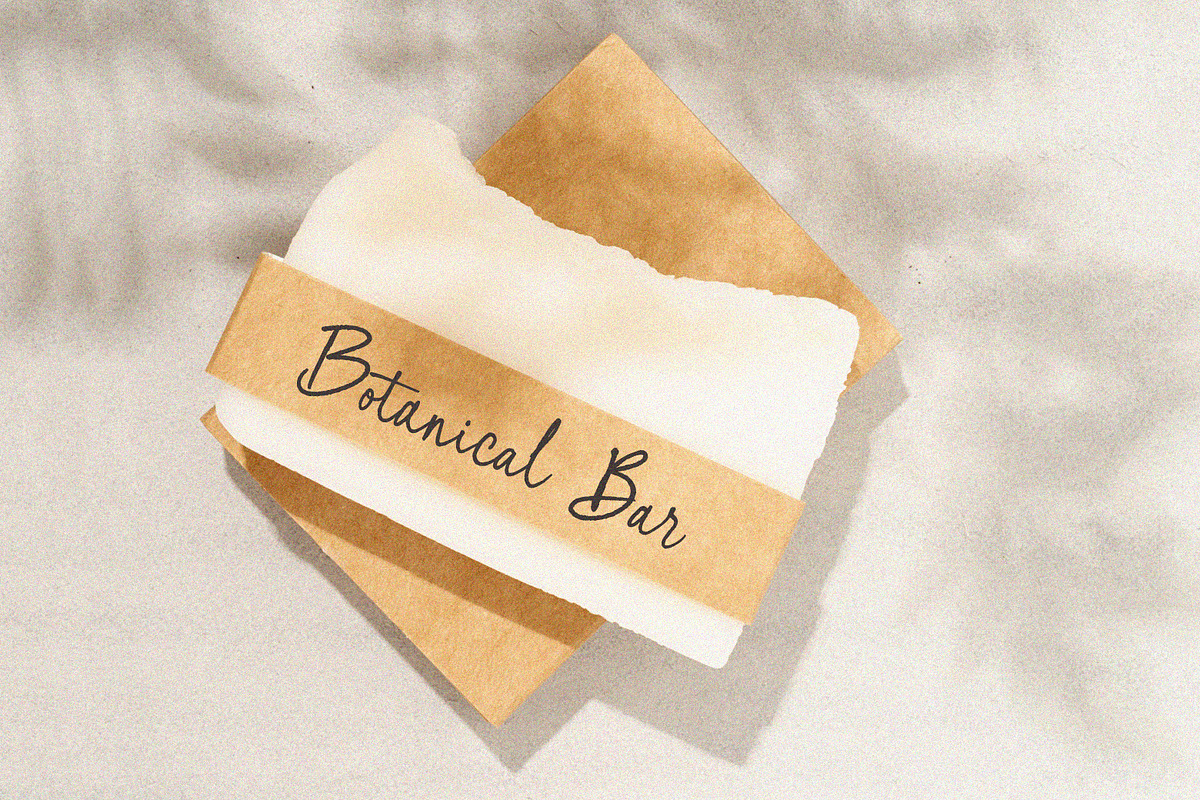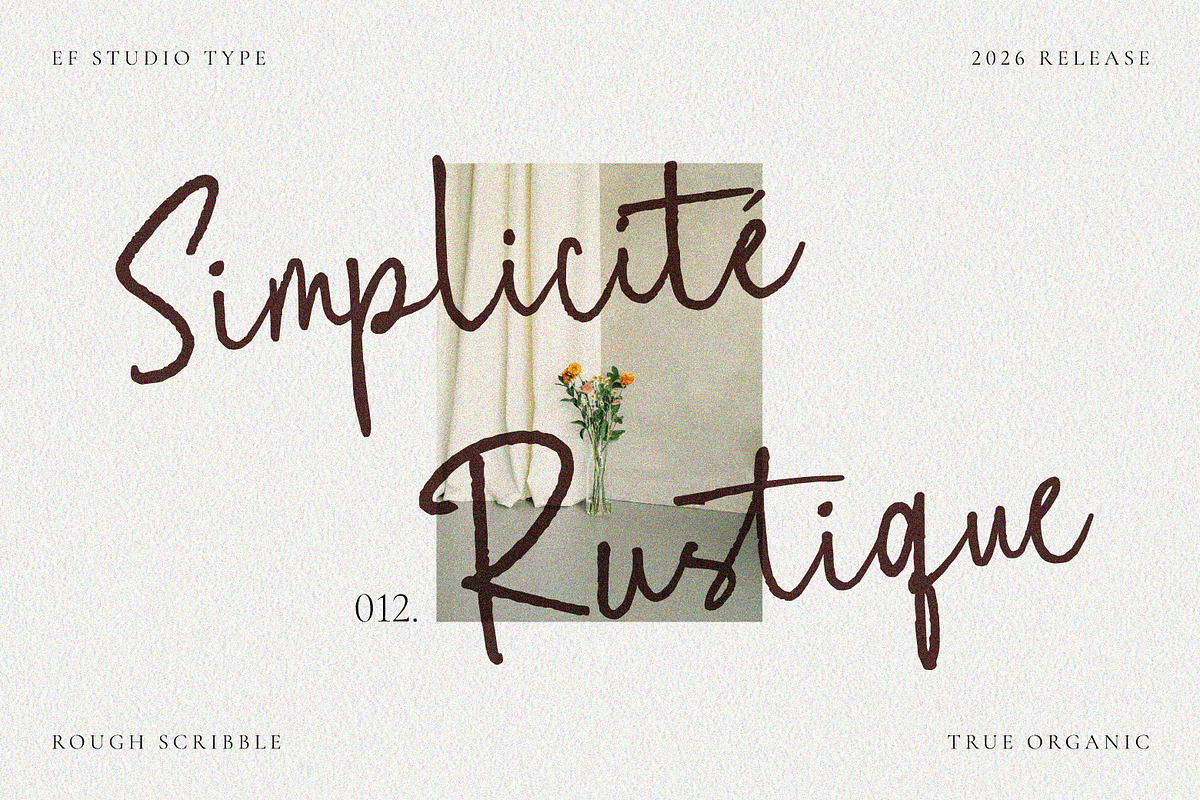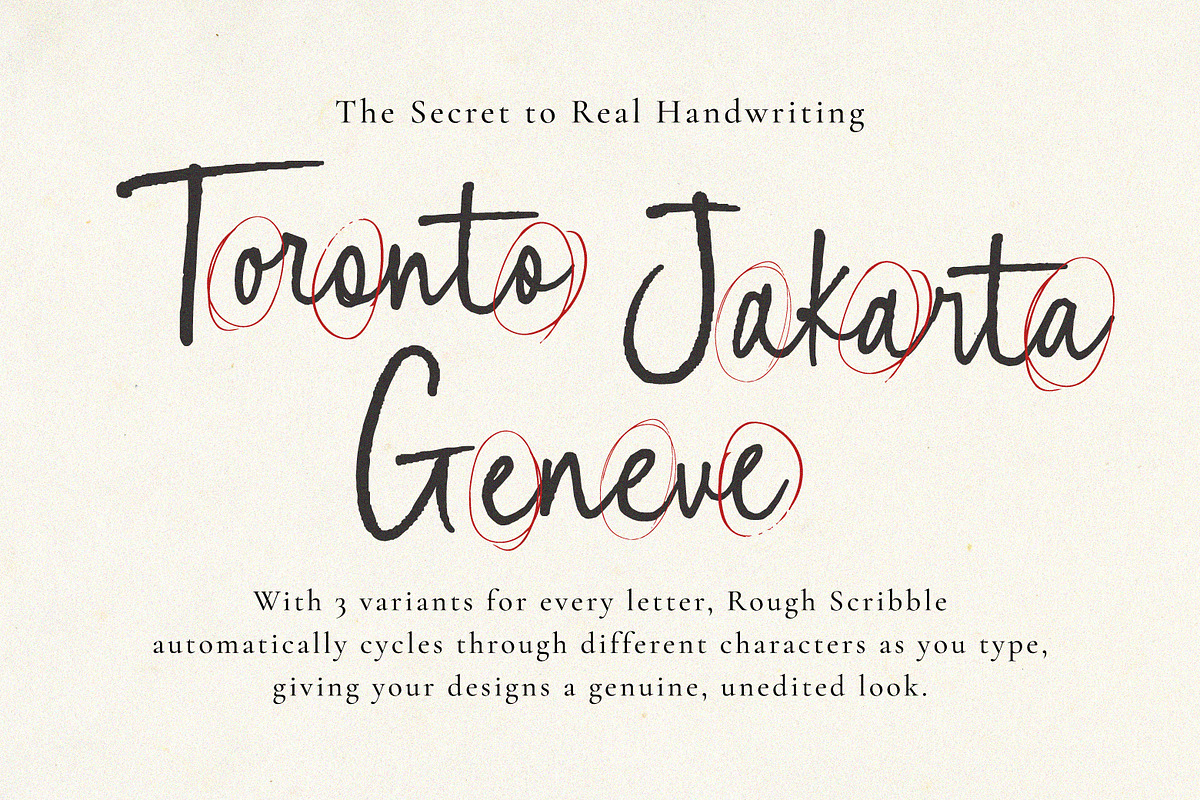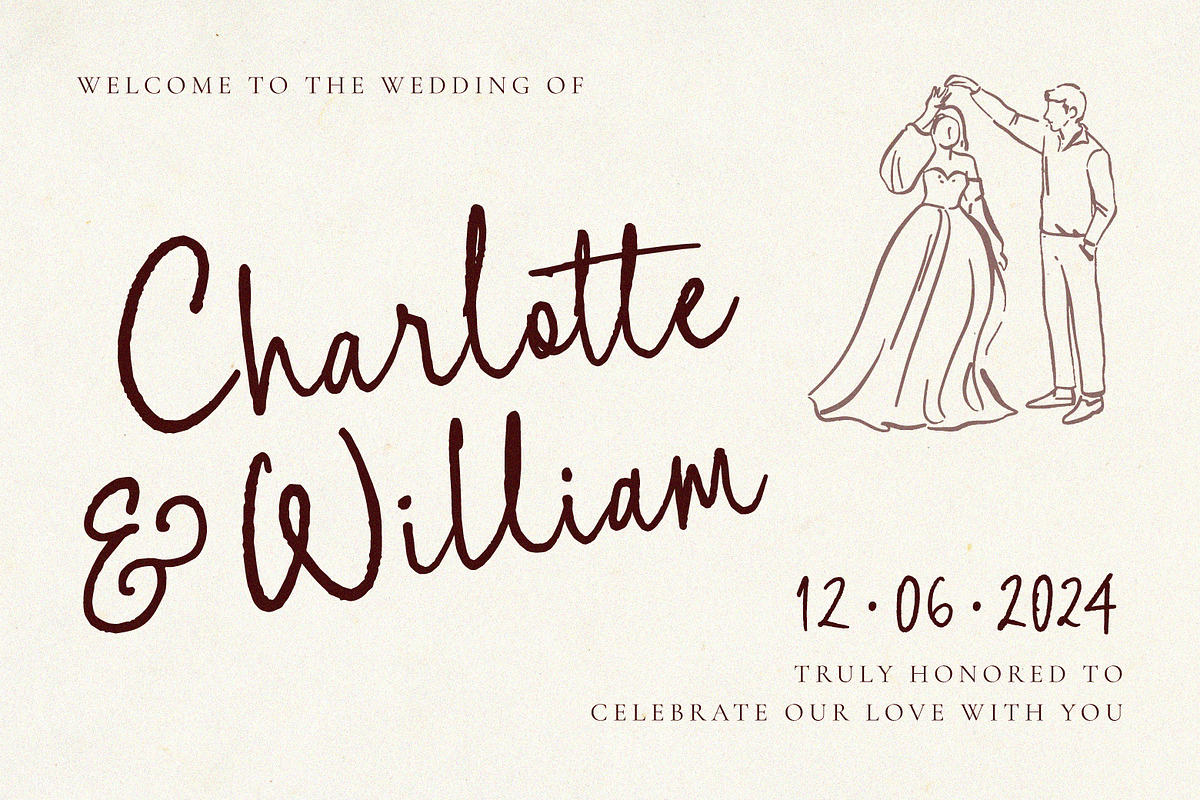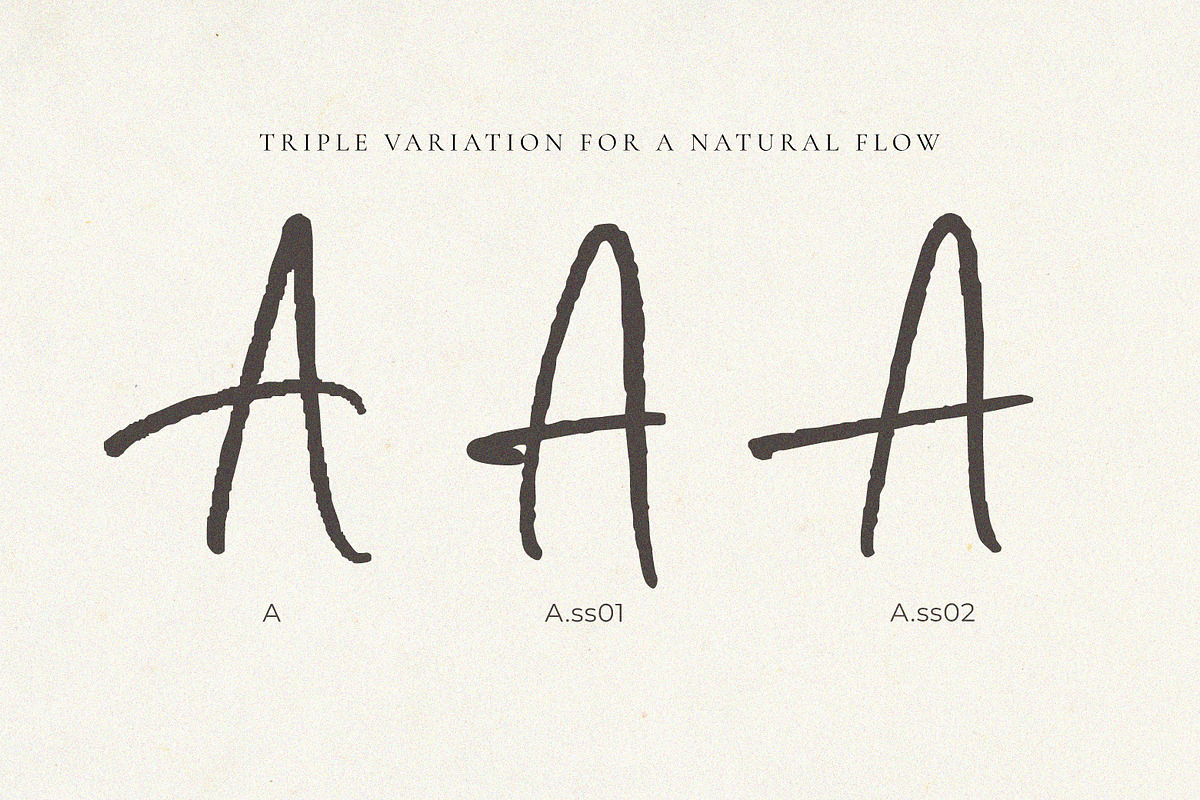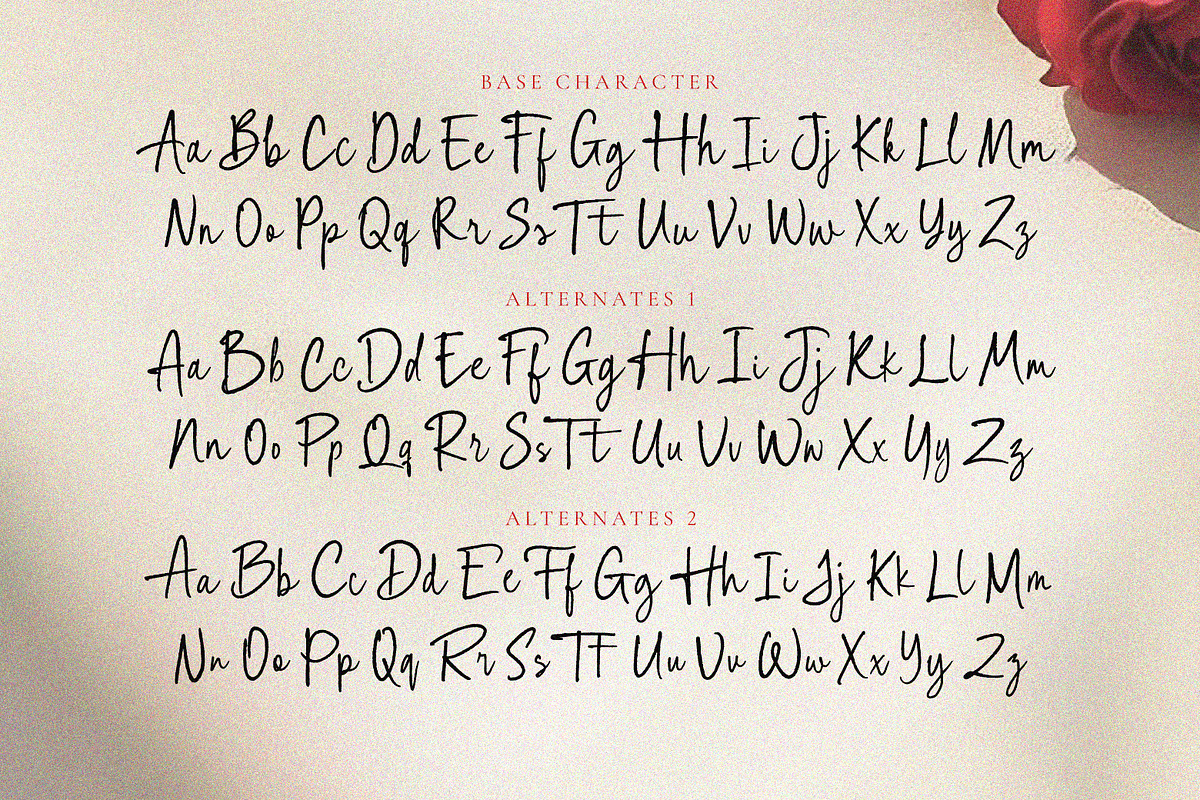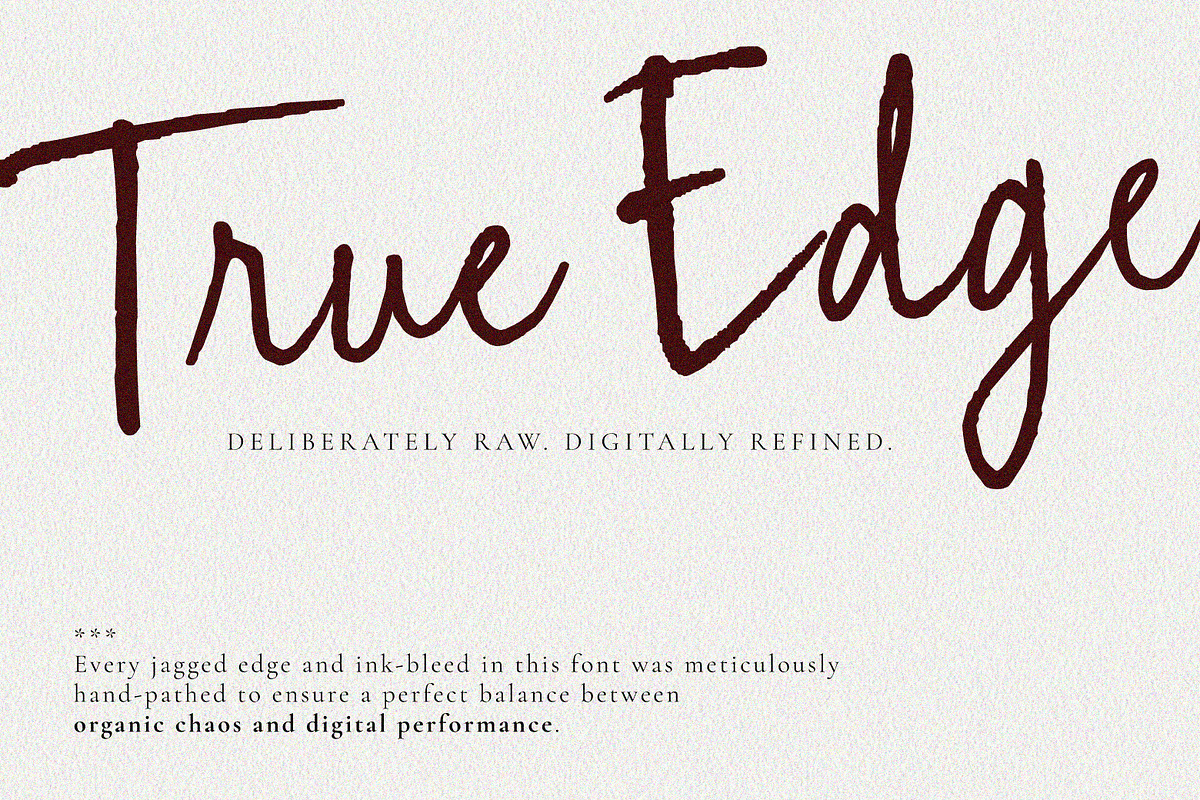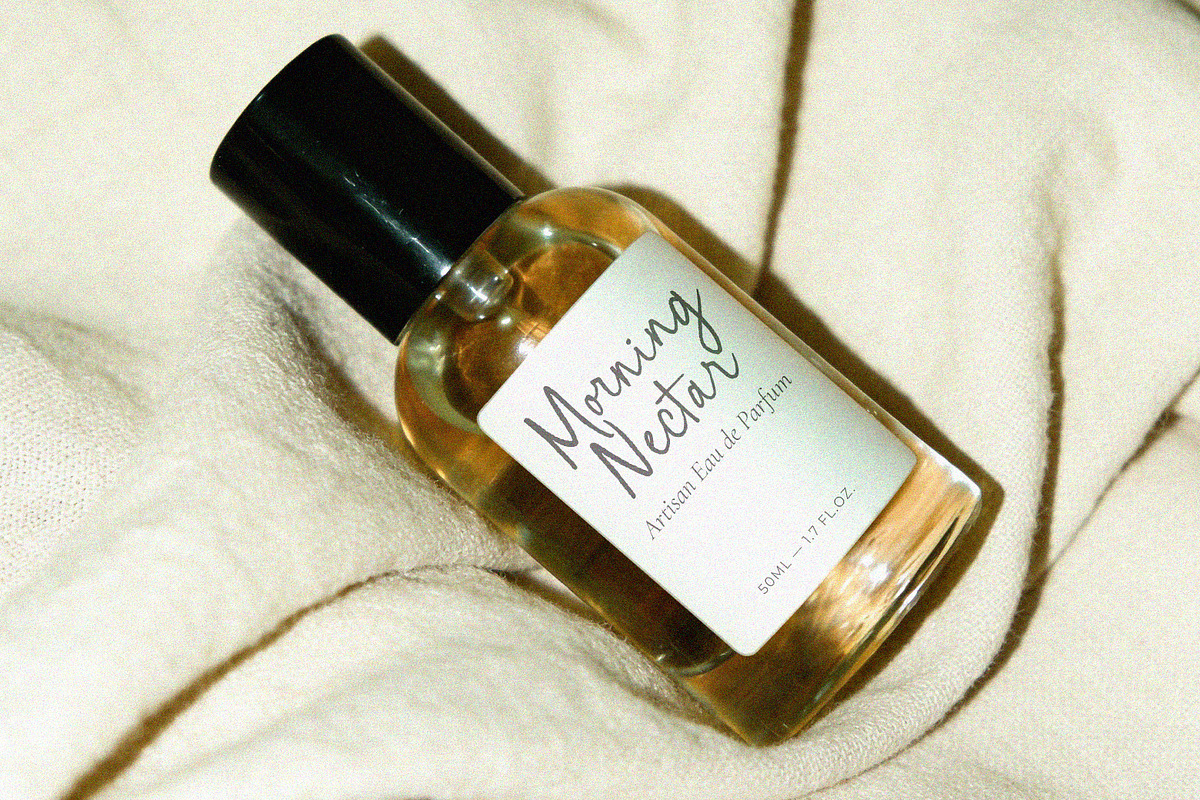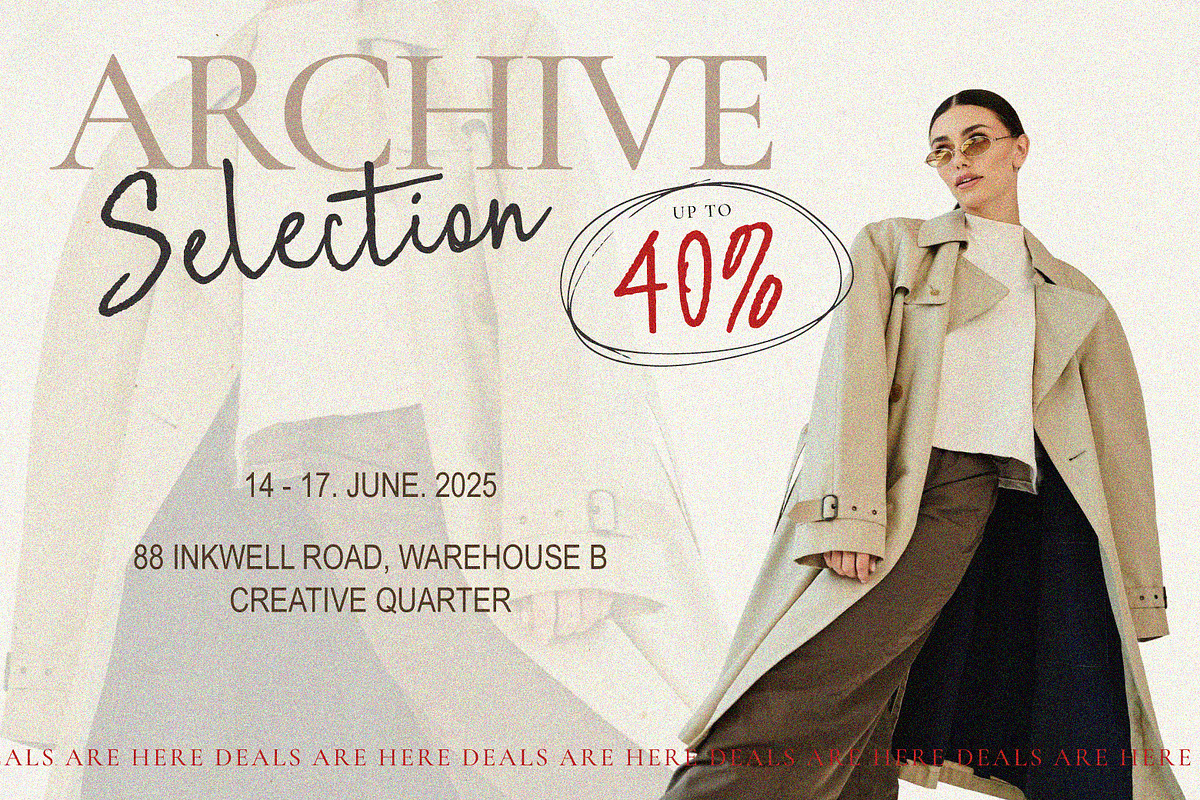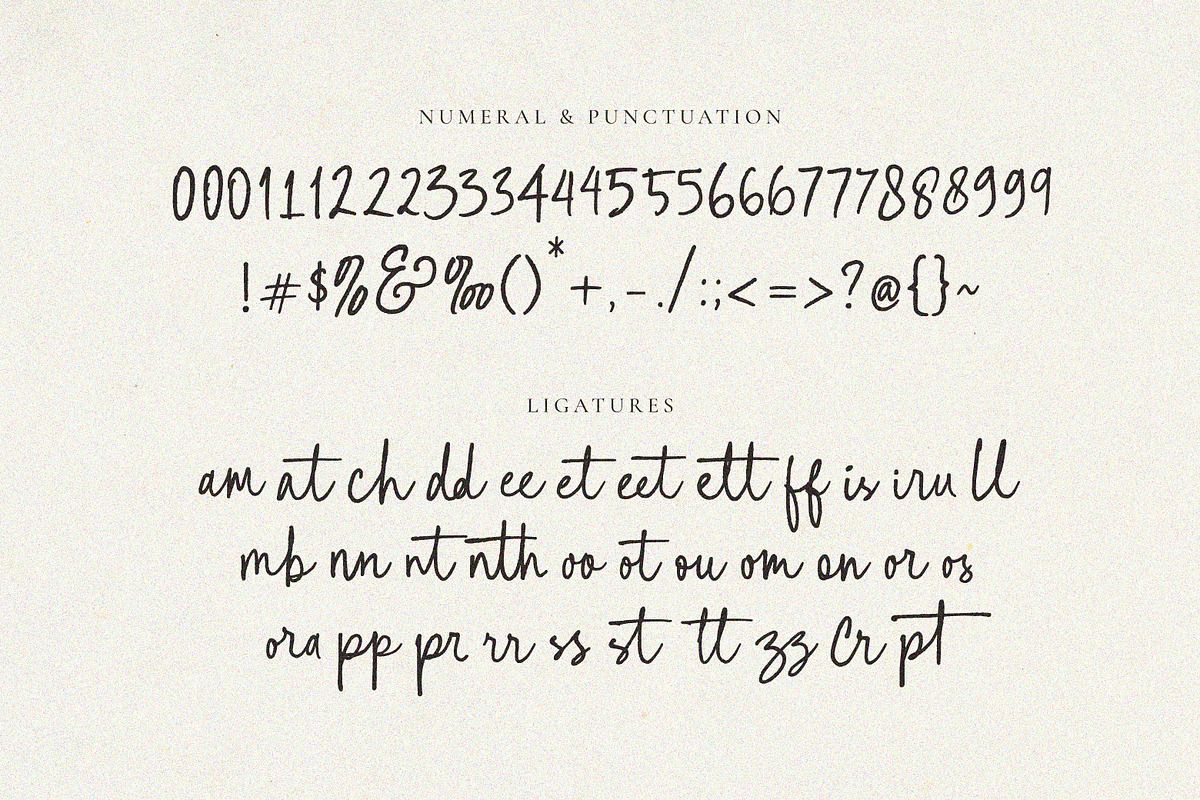
Rough Scribble Script
Bring an authentic, archival soul to your creative projects. Rough Scribble is a high-end script font that masterfully balances the ruggedness of "ink-on-paper" with a refined, modern aesthetic. Designed by Ef Studio, this typeface captures the essence of manual handwriting, making it the perfect choice for premium apparel branding, perfumerie label, artisan coffee packaging, apothecary labels, and sophisticated wedding stationery. Rough Scribble adds a distinct, human-centered feel to every layout.
Why it stands out:
- 3x Rotating Alternates: This font is built with an intelligent cycle that automatically alternates between three different versions of each character, ensuring your text looks like genuine, organic handwriting. Never repetitive. *make sure Contextual Alternates feature enabled.
- Seamless Ligatures: Engineered for a flawless flow, the ligatures ensure that every letter connects naturally, mimicking the rhythm of a real pen. *make sure Standard Ligatures feature enabled.
- Raw Ink Texture: Features subtle, jagged edges and an "ink-bleed" effect that gives your typography a tactile, artisan feel.